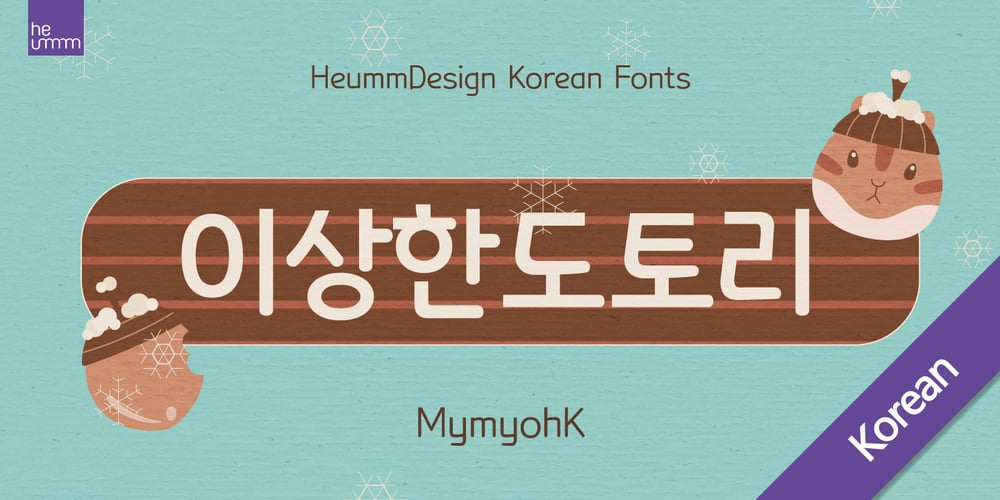
HU Mymyoh KR Font Family was designed by Haerin Lee, Rumi Kim and published by Heummdesign. HU Mymyoh KR contains 2 styles and family package options. HU Mymyoh KR is contains KOREAN words and Latin alphabets. HU Mymyoh KR adds a gothic feel to the Gulim-based typeface. The grapheme ‘ㅎ’ and ‘ㅊ’ are shaped into an acorn shape, and the shape of the grapheme is made in a large trapezoidal shape, so it is a typeface that feels both individuality and readability.